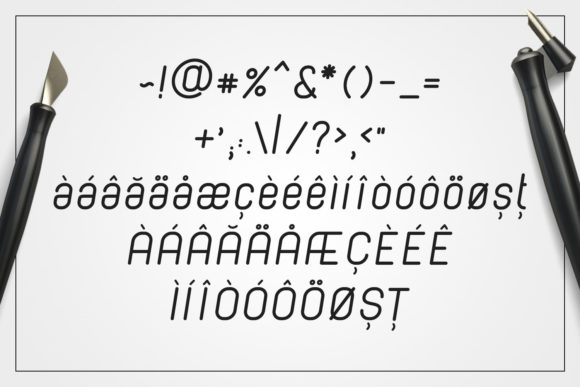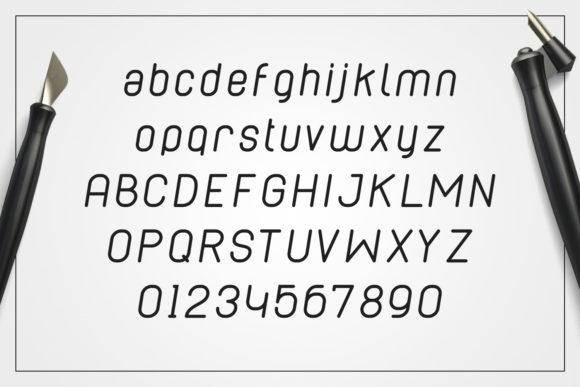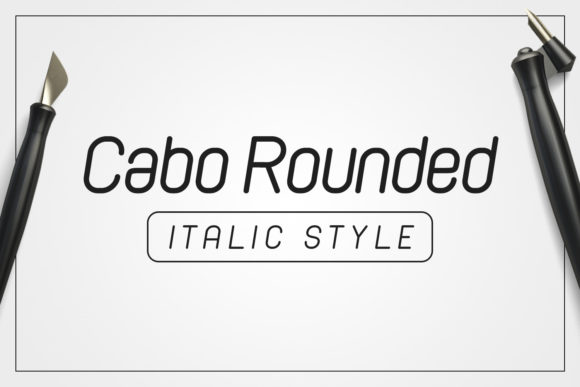
Cabo Rounded Italic Font: The Ultimate Design Companion
In the world of typography, a font can make or break a design. A well-chosen font can elevate your project, making it more engaging, readable, and aesthetically pleasing. If you’re a designer or crafter looking for a versatile and clean sans serif font, look no further than Cabo Rounded Italic. This font is a game-changer, suitable for a wide range of designs, from digital media to print materials.
What is Cabo Rounded Italic?
Cabo Rounded Italic is a modern sans serif font that boasts a neat and simple style. Its clean lines and rounded edges make it perfect for designs that require a touch of elegance and sophistication. This font is designed to be highly adaptable, allowing you to use it in various contexts, from headings and titles to body text and captions.
Key Features of Cabo Rounded Italic
- Clean and Simple Style: Cabo Rounded Italic’s minimalist design makes it easy to read and versatile enough to fit into any design.
- Rounded Edges: The font’s rounded edges give it a friendly and approachable feel, perfect for designs that require a touch of warmth.
- High Legibility: The font’s clear and concise lines ensure that your text is easy to read, even at small sizes.
- Wide Range of Uses: From digital media to print materials, Cabo Rounded Italic is suitable for a wide variety of designs, including:
- Headings and titles
- Body text and paragraphs
- Captions and subtitles
- Signage and display text
Why Choose Cabo Rounded Italic?
With so many fonts available, why choose Cabo Rounded Italic? Here are just a few reasons why this font stands out from the crowd:
- Versatility: Cabo Rounded Italic is an incredibly versatile font, suitable for a wide range of designs and applications.
- Ease of Use: The font’s clean and simple style makes it easy to read and work with, even for designers who are new to typography.
- Unique Style: While Cabo Rounded Italic is a sans serif font, its rounded edges give it a unique and distinctive style that sets it apart from other fonts.
How to Use Cabo Rounded Italic in Your Designs
Now that you’re interested in using Cabo Rounded Italic in your designs, here are a few tips to get you started:
- Pair it with Other Fonts: Cabo Rounded Italic pairs well with a variety of other fonts, including serif fonts, script fonts, and other sans serif fonts.
- Experiment with Font Sizes: The font’s clear and concise lines make it easy to read at a variety of font sizes, from large headings to small body text.
- Play with Color: Cabo Rounded Italic looks great in a variety of colors, from bold and bright to subtle and muted.
| Font Name | Cabo Rounded Italic Font |
| Author | Design A Lot |
In conclusion, Cabo Rounded Italic is a clean and adaptable sans serif font that’s perfect for designers and crafters looking for a versatile and elegant font. Its neat and simple style, rounded edges, and high legibility make it suitable for a wide range of designs, from digital media to print materials. Whether you’re creating a logo, heading, or body text, Cabo Rounded Italic is a great choice. So why not give it a try and see how it can elevate your designs?